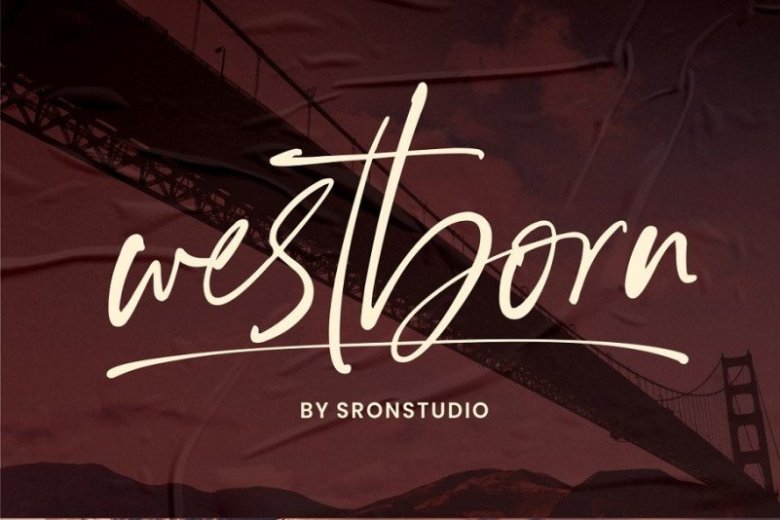
Westborn – Signature Font
Introducing Westborn – Signature Style Font
Westborn is a stylish signature font perfect for branding, invitation, stationery, wedding designs, social media posts, advertisements, product packaging, product designs, label, photography, watermark, special events or anything.
Westborn comes with full set of uppercase and lowercase letters, 63 beautiful ligatures,multilingual symbols, numerals and punctuation.